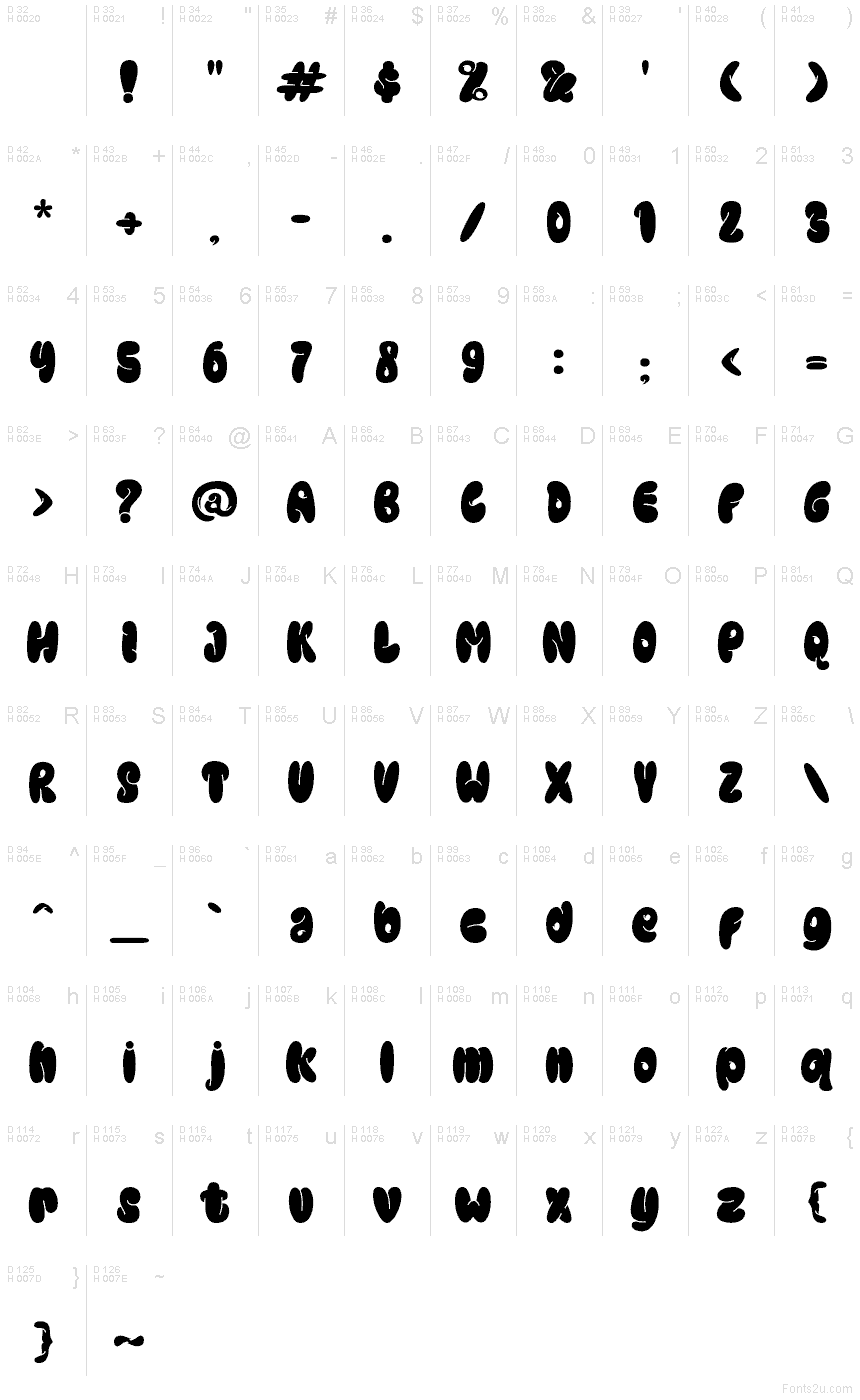
BUBBLE COOL
Bubble Cool font by Hardtype is a groovy display typeface with a friendly appearance and refined outlines. Its retro-inspired lines and organic shapes add elegance to each letter while allowing the words needed to be typed legibly. The bold font delivers a modern look without losing its vintage-inspired features.